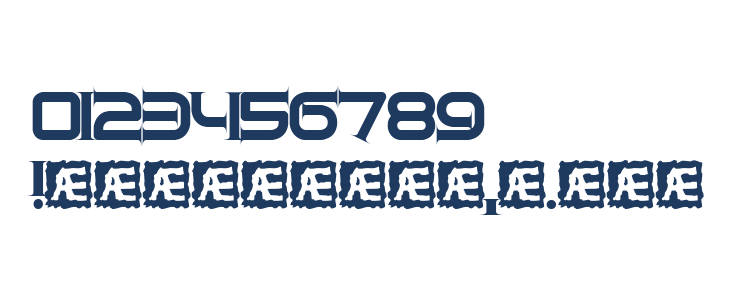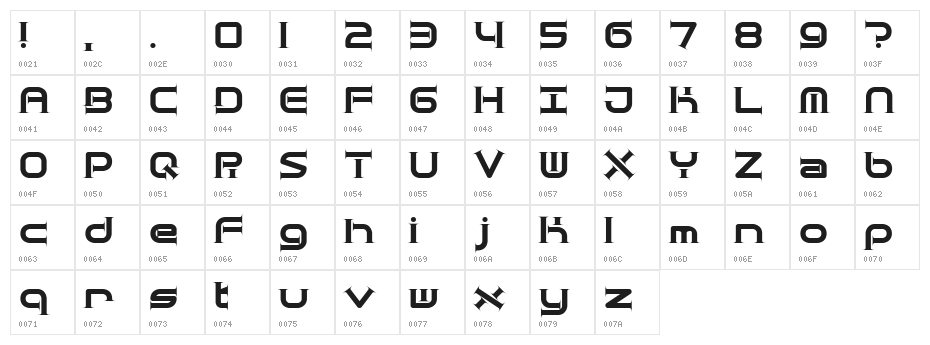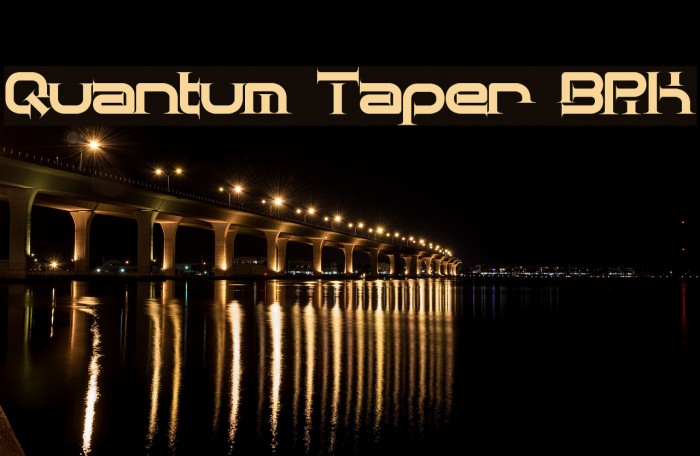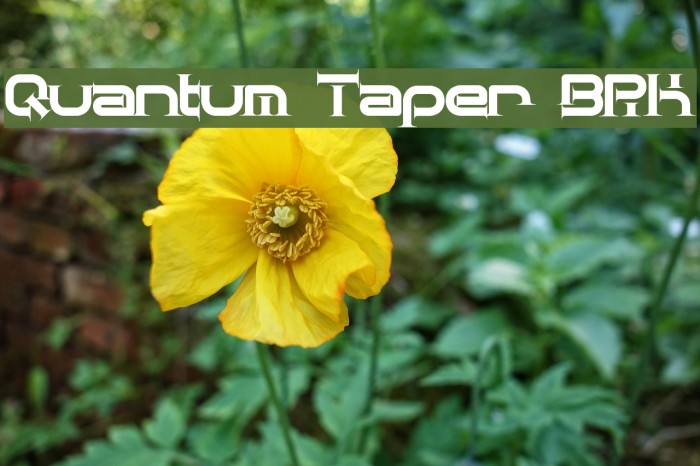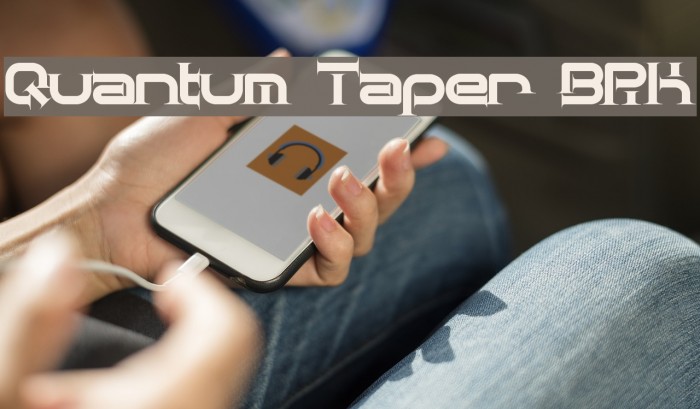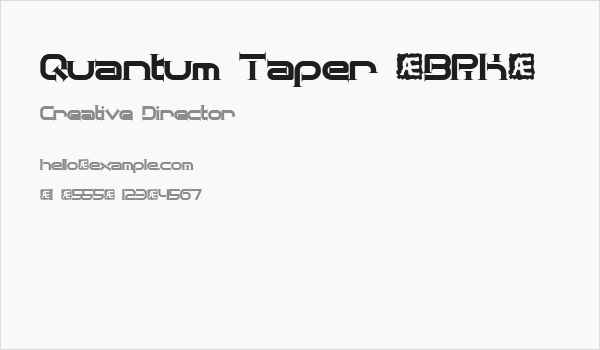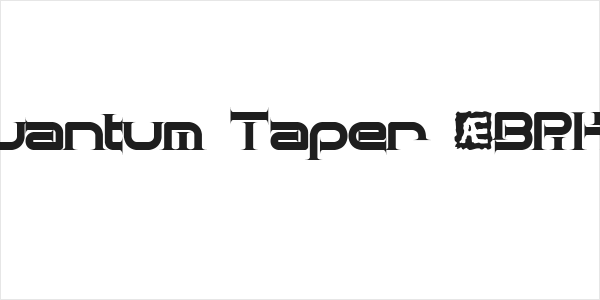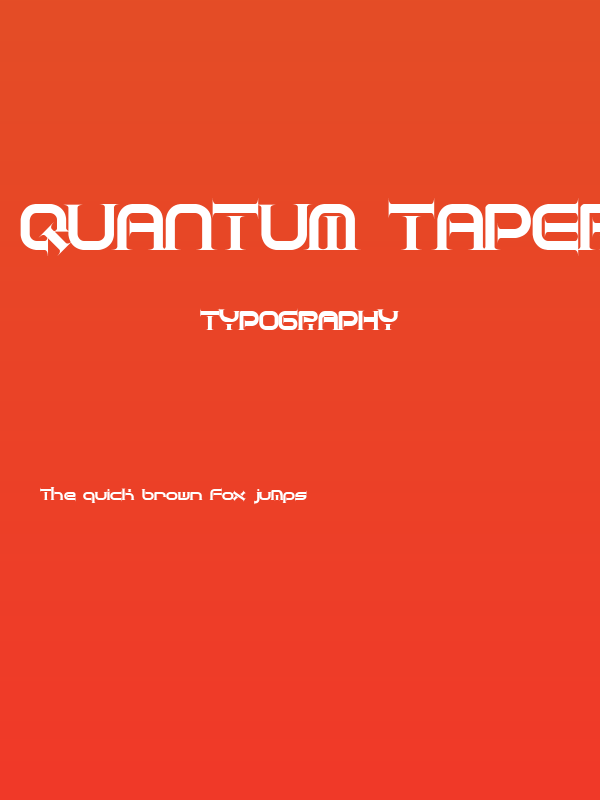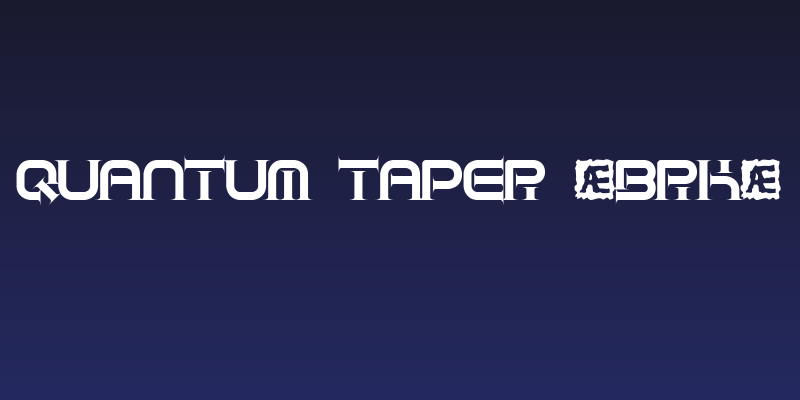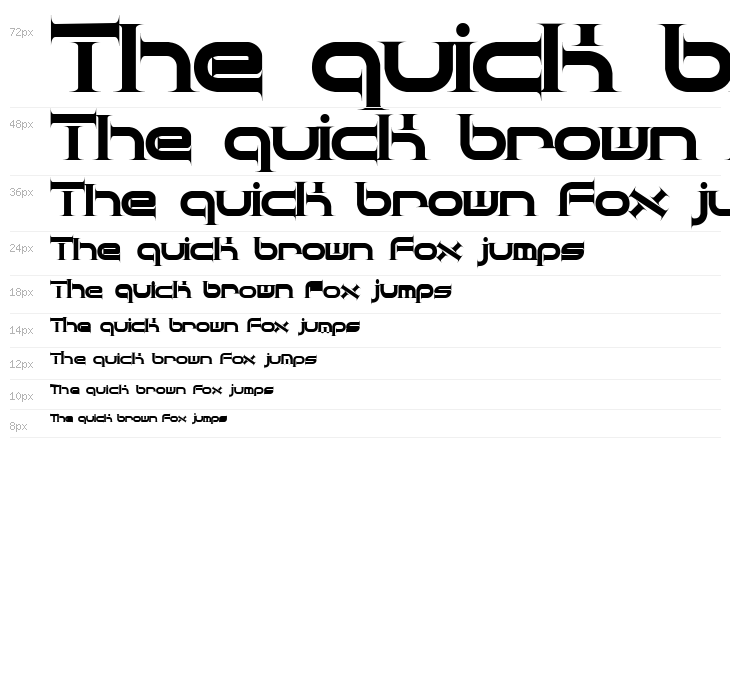
Quantum Taper [BRK] Font
Quantum Taper [BRK] Description
This font features a futuristic and edgy design, characterized by sharp, angular lines and a distinct tapering effect at the ends of each character. The uppercase and lowercase letters maintain a consistent height, creating a uniform appearance. The numerals are bold and easily distinguishable, with a similar tapering style that adds to the overall aesthetic. Special characters are designed with the same attention to detail, ensuring they blend seamlessly with the rest of the font. The unique style makes it stand out, suitable for projects that require a modern and dynamic look.